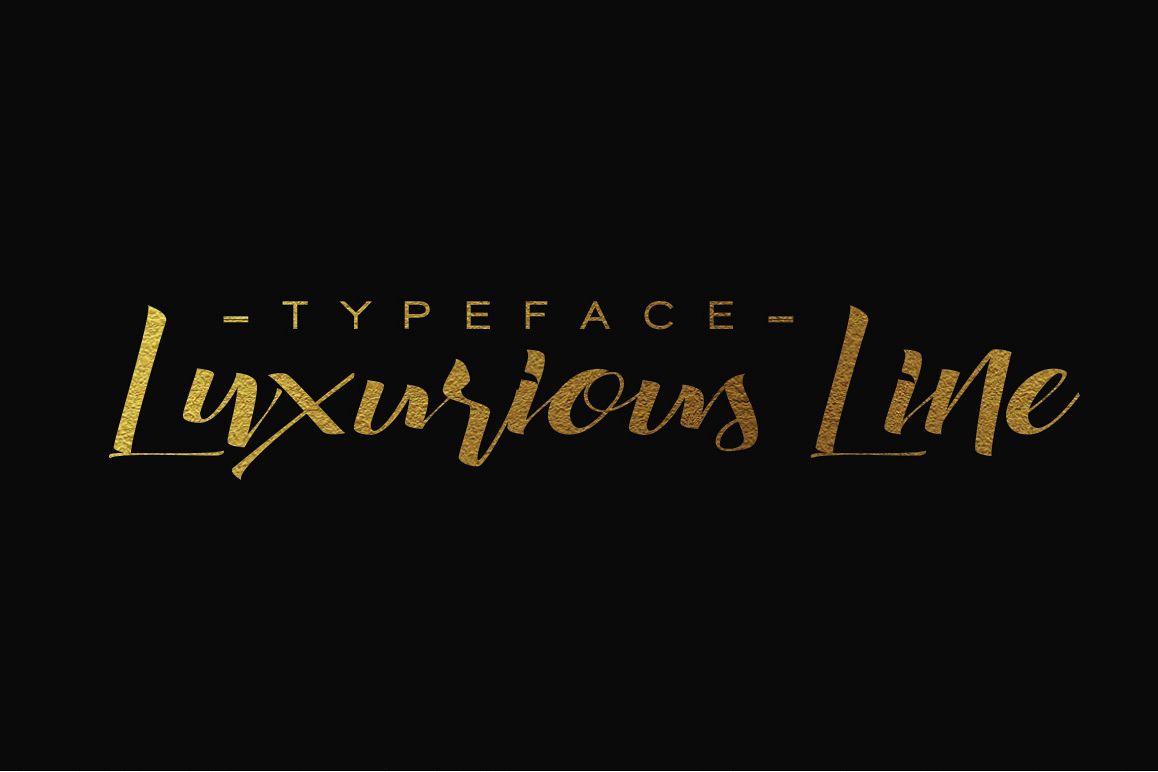
Luxurious Line Typeface
Introducing "Luxurious Line Typeface" Can be used for various purposes namely headings, logos, wedding invitations, t-shirts, letterheads, signages, labels, news, posters, badges etc. Product Content: Luxurious Line.otf Luxurious Line.ttf Luxurious Line Web Font Features: Uppercase Lowercase Ligatures Numeral & Punctuations (Open Type Standard) Use a program that supports OpenType features such as Adobe Illustrator CS, Adobe Indesign & CorelDraw X6-X7 to access the full features of this typeface. How-to pdf included in the package. Feel free to contact me for additional supports. Personal and Commercial use are permitted